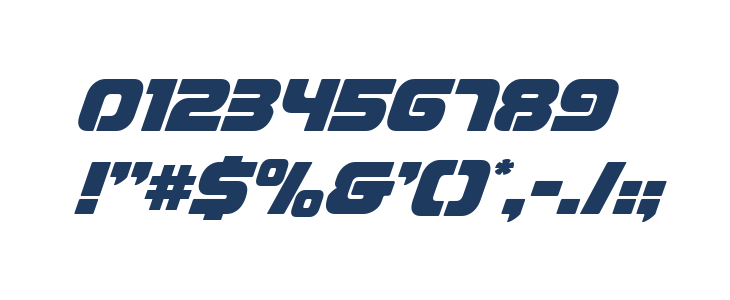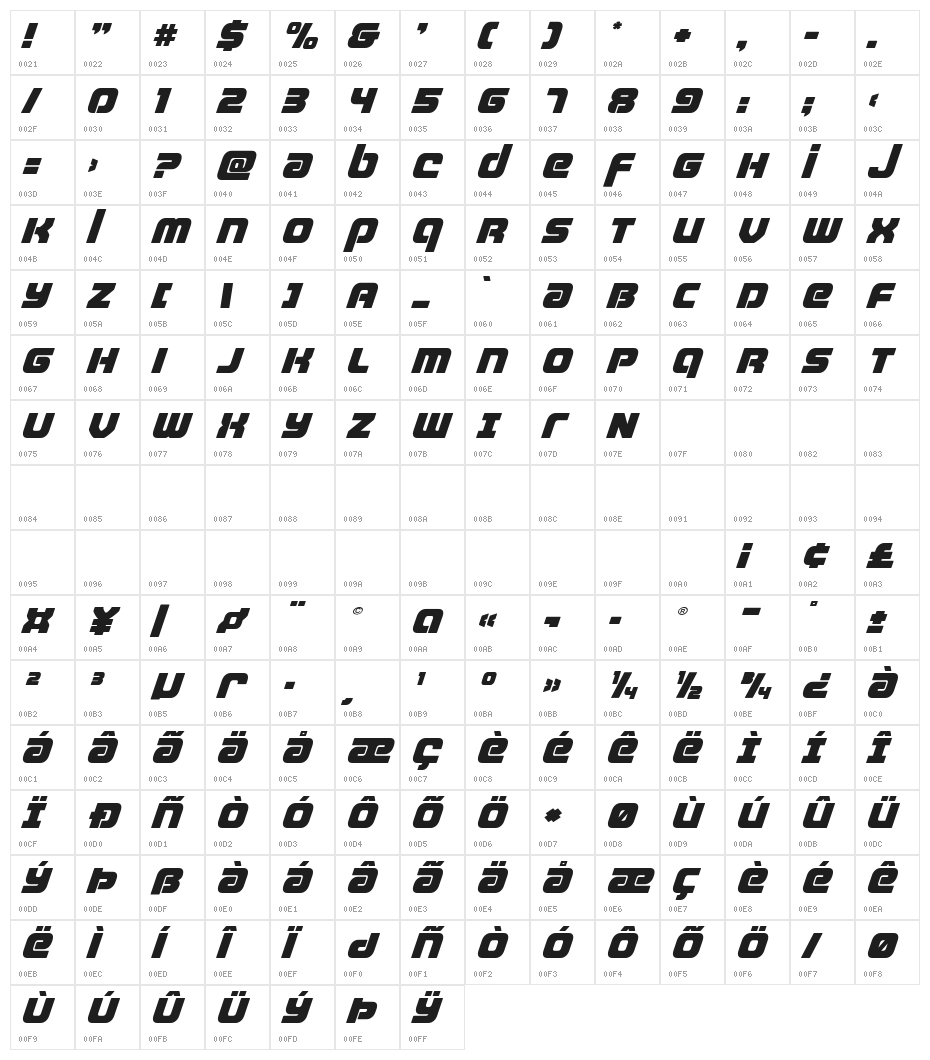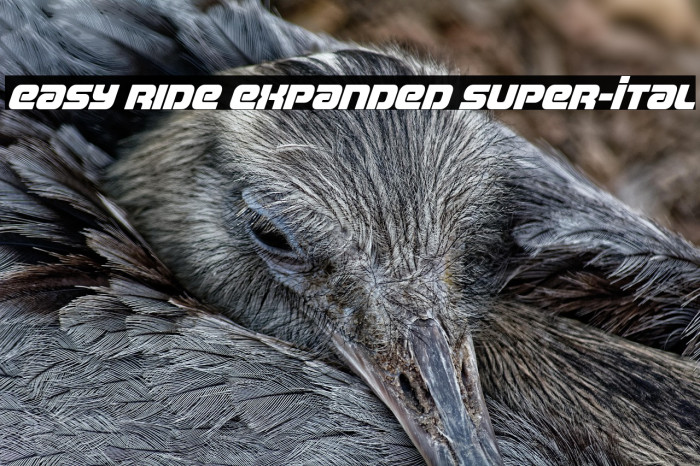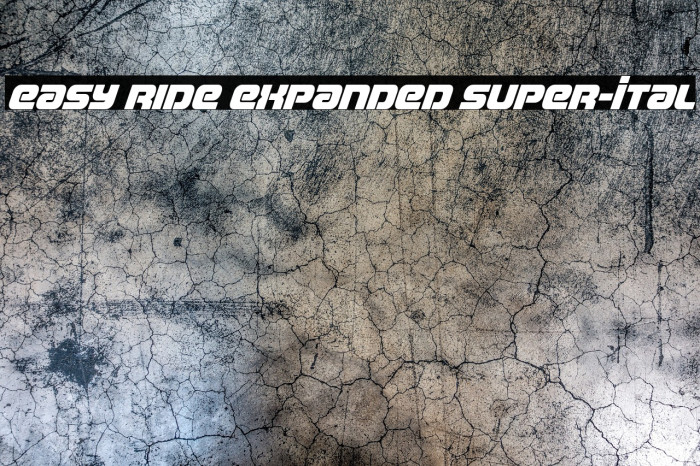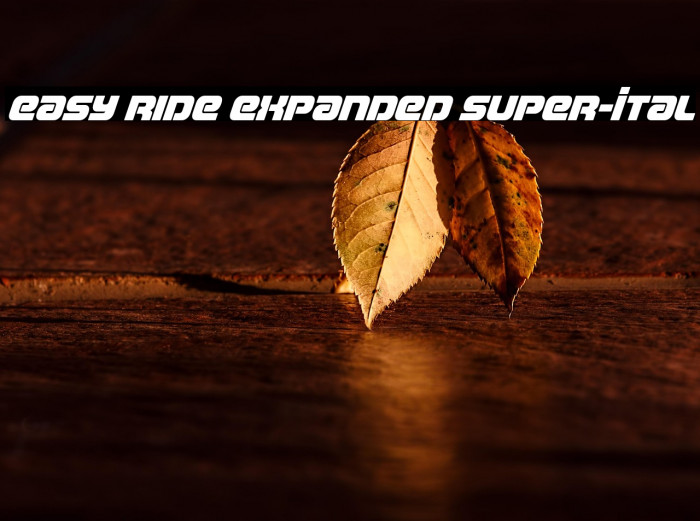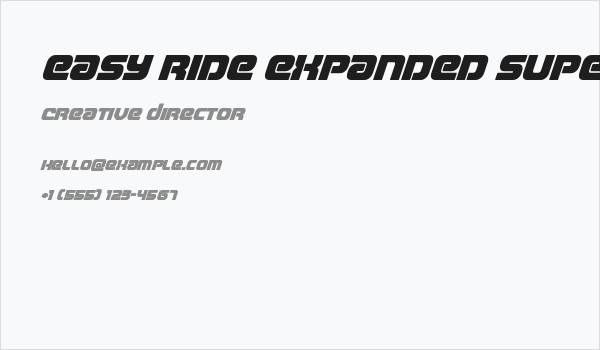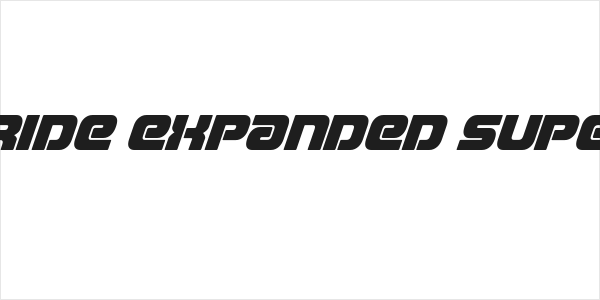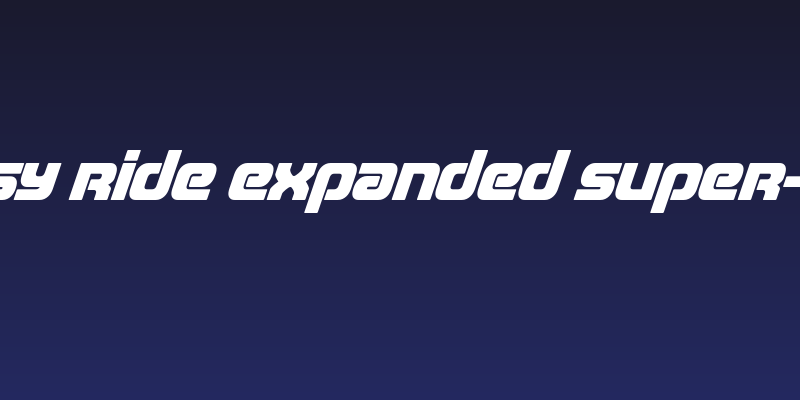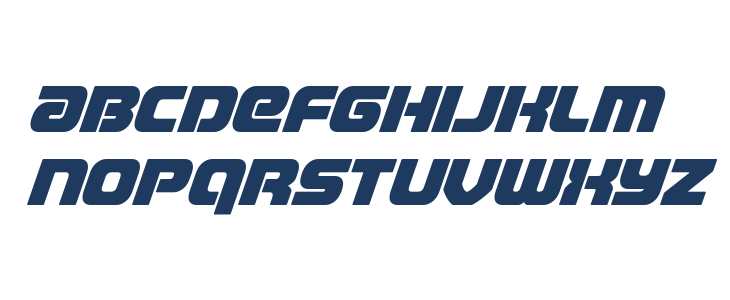
Easy Ride Expanded Super-Ital Font
Easy Ride Expanded Super-Ital Description
This font features a bold and dynamic style with a distinctly modern flair. The characters are designed with a forward-leaning italic slant, giving a sense of motion and energy. The strokes are thick and consistent, providing a strong visual impact. The overall design is sleek and futuristic, with geometric shapes and sharp angles that enhance its contemporary appearance. The expanded width of the characters adds to its boldness, making it suitable for attention-grabbing headlines and titles. The font maintains a uniform character spacing, ensuring readability while emphasizing its bold aesthetic.
| Proposed Projects | Ideal for use in branding, advertising, sports team logos, automotive designs, and any project requiring a strong, modern aesthetic. |